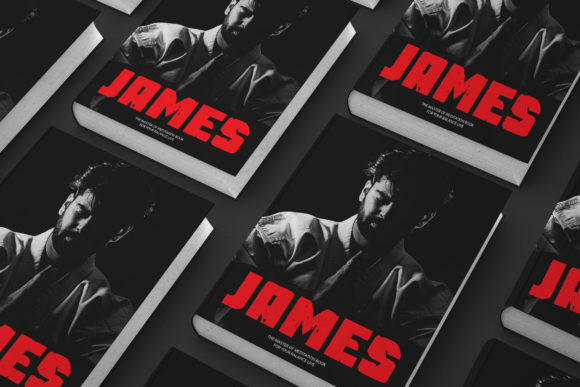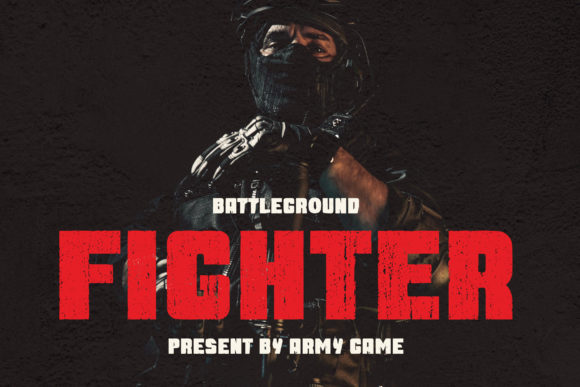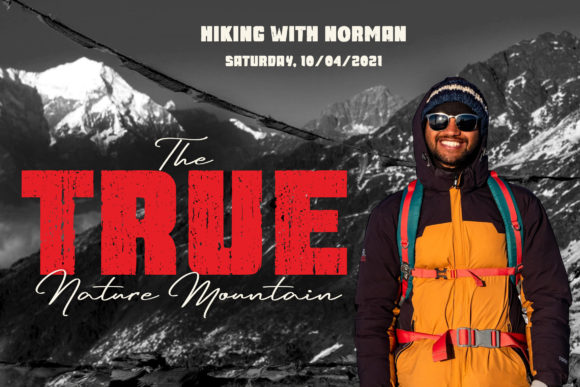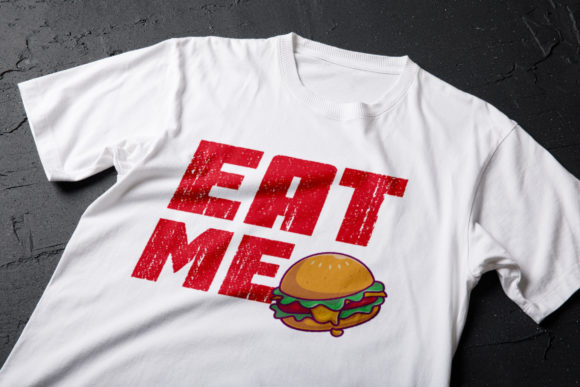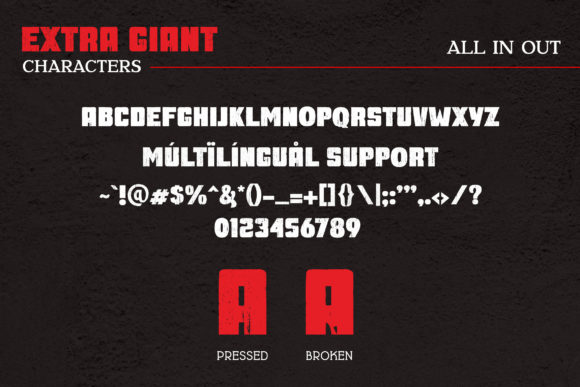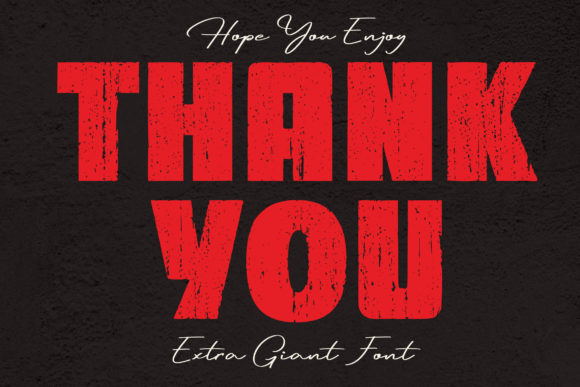
The Ultimate Display Font: Extra Giant
Have you ever been in the middle of a design project, and suddenly, you’re stuck on finding the perfect font? I recall a recent experience where I was working on a poster design for a music festival, and I just couldn’t find a font that screamed “festival vibes.” That’s when I stumbled upon Extra Giant, a cool, bold, and rough textured display font that instantly elevated my design. In this article, we’ll dive into the world of Extra Giant, exploring its features, uses, and endless possibilities.
Honest Review: The Good and the Quirks
What I Love About Extra Giant ✨
- 💥 **Impactful**: Extra Giant is a showstopper, making any design statement pop with its bold and rough texture.
- 🎨 **Versatile**: This font is perfect for various design projects, from posters and flyers to prints and digital displays.
- 🖌️ **Unique Texture**: The rough texture adds a distinctive touch, giving designs a raw, edgy feel.
- ✅ **Easy to Read**: Despite its boldness, Extra Giant remains surprisingly legible, even at smaller sizes.
- ⚠️ **Limited Use Cases**: Extra Giant is a display font, so it’s best used for headlines or titles rather than body text.
- 🖌️ **May Not Be Suitable for Fine Prints**: The rough texture might not translate well to very small font sizes or detailed prints.
The Designer Inspiration Behind Extra Giant
Extra Giant was born from a designer’s desire to create a font that screams attention. Inspired by urban landscapes and street art, the creator aimed to craft a font that’s both bold and textured. The result is a font that’s perfect for designers looking to add an edgy touch to their work.
Q: What is Extra Giant best used for?
A: Extra Giant is ideal for display purposes, such as posters, flyers, prints, and digital displays.
Q: Is Extra Giant suitable for body text?
A: No, Extra Giant is a display font and works best for headlines or titles rather than body text.
Q: Does Extra Giant support OpenType features?
A: Yes, Extra Giant supports OpenType features, including glyphs and stylistic alternates, which can be accessed in compatible design platforms.